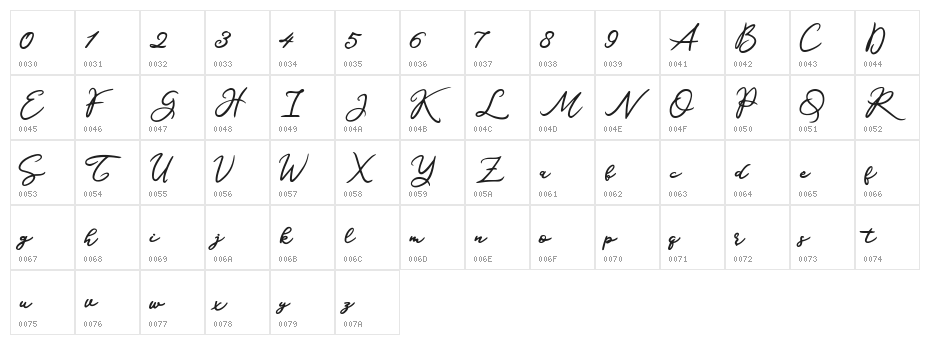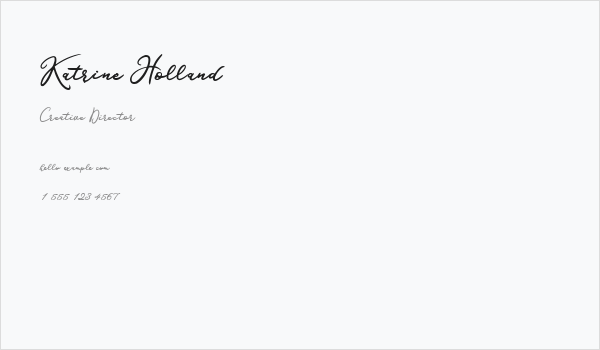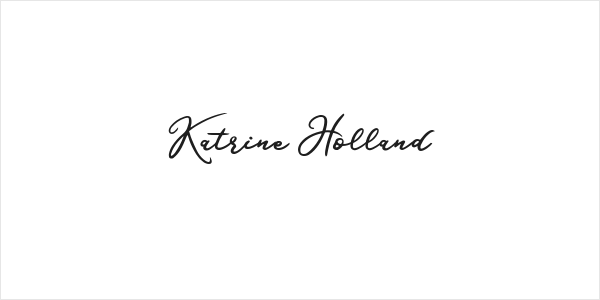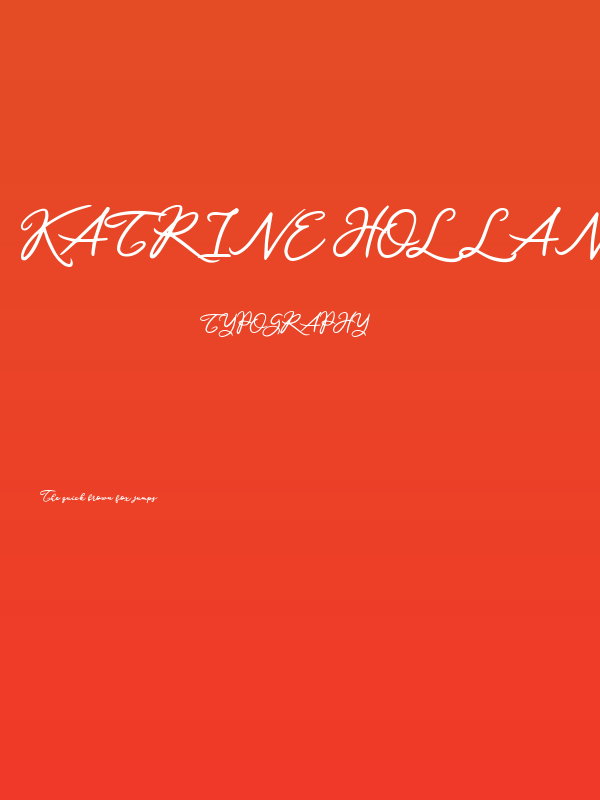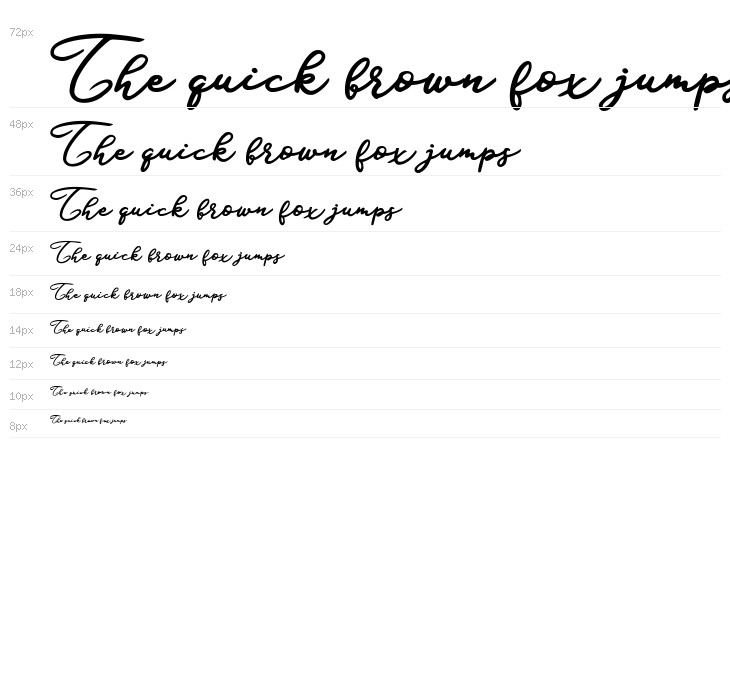
Katrine Holland Font
Katrine Holland Description
This font features a flowing, cursive style that exudes elegance and sophistication. The uppercase letters are characterized by sweeping curves and loops, giving them a sense of fluidity and grace. The lowercase letters maintain a consistent style, with smooth connections between each character, enhancing the script's readability. The numerals are designed to match the overall aesthetic, with a slight slant and rounded edges that complement the letters. Special characters are seamlessly integrated, maintaining the font's cohesive look. This font is ideal for projects that require a touch of class and refinement.
KATRINE-HOLLAND UPPERCASE
KATRINE-HOLLAND LOWERCASE
KATRINE-HOLLAND OTHER CHARS
| Overall Style | Elegant, Decorative |
| Use Case | Headlines, Invitations, Branding |
| Proposed Projects | Ideal for wedding invitations, elegant branding, personal signatures, and decorative headings. |